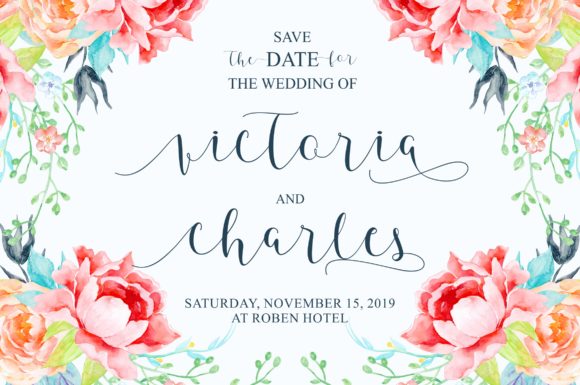
About Kayla Font
Kayla Script is a sweet script with stylish calligraphy, decorative characters, and a dancing base! So beautiful to be used on invitations like greeting cards, logotype, branding materials, business cards, quotes, posters, and more!